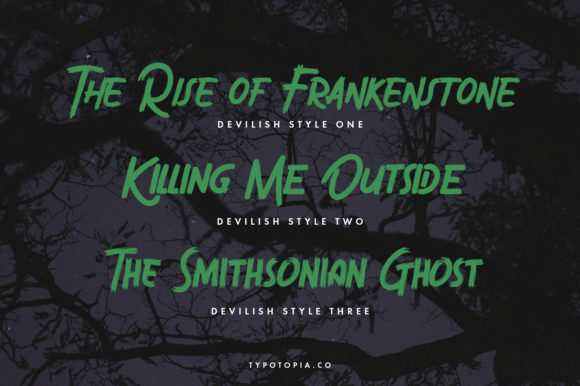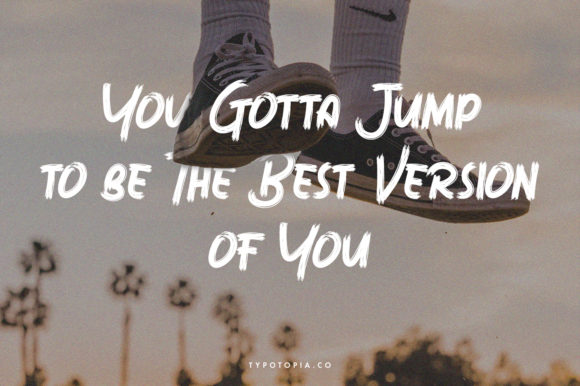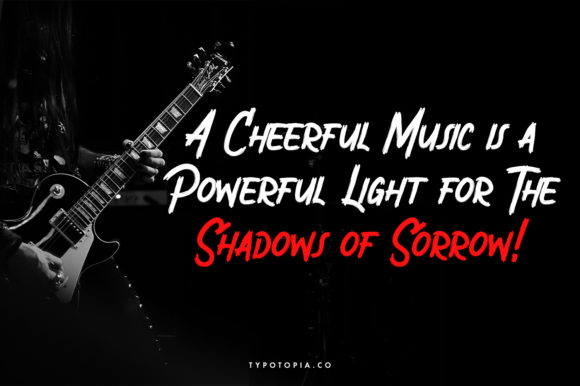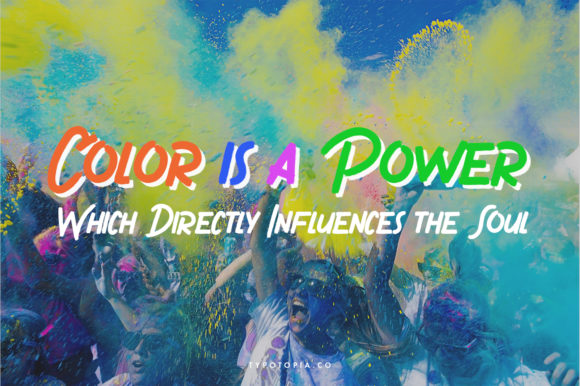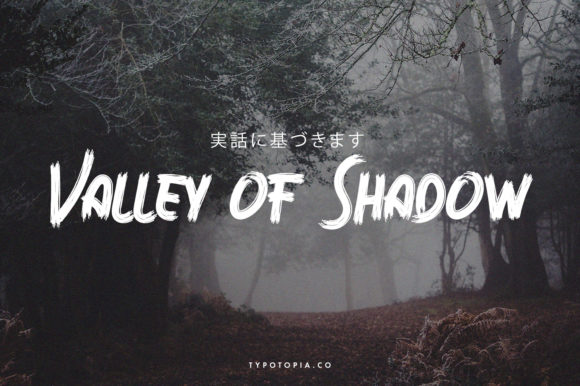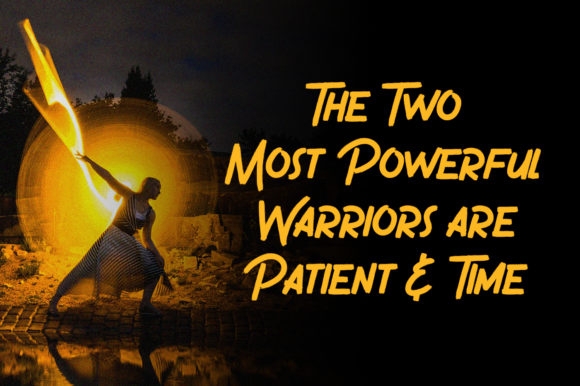
Introduction to Devilish Trio Font
Have you ever stared at a blank canvas, itching to unleash your creativity but struggling to find the perfect font to set the tone? We’ve all been there – and that’s exactly where the Devilish Trio Font comes in. This bold, blood-curdling display font is designed to add a dash of devilish charm to your creative project, making it stand out from the crowd.
Whether you’re working on a high-quality design resource or just a quick free download, the Devilish Trio Font is sure to bring a touch of sophistication and playfulness to your work. With its transparent background and versatile design, it’s the perfect addition to any creative project – from brochures to posters, and even social media graphics.
As a valuable resource for designers, the Devilish Trio Font offers endless possibilities for experimentation and innovation. So why settle for a bland, run-of-the-mill font when you can unleash your inner devil with this devilish trio of letters?
Key Features of Devilish Trio Font
- High-quality design resource ideal for creative projects, such as graphic design, digital art, and typography.
- Available in 3 unique styles, making it a versatile design resource for various creative projects.
- Features a transparent background, allowing for seamless integration with any design or image.
- Perfect for designers looking for a unique and eye-catching font to elevate their creative project.
Honest Review: Devilish Trio Font
I recently stumbled upon the Devilish Trio Font, and I’m excited to share my thoughts with you. As a designer, I’m always on the lookout for high-quality design resources that can elevate my creative projects.
The Devilish Trio Font is a great find for anyone looking for a unique, eye-catching font. ✨ It features a bold, cursive design that’s perfect for adding a touch of whimsy to your designs. One of the standout features of this font is its transparent background, which makes it easy to use on both light and dark backgrounds.
Here are some of the things that I like about the Devilish Trio Font:
- Unique, creative design
- High-quality font files for smooth rendering
While the Devilish Trio Font is a great addition to any designer’s toolkit, there are a few limitations to be aware of:
- No italic or bold styles (although this may be a deliberate design choice)
- May not be suitable for large blocks of text due to its cursive design
Overall, I’m impressed with the Devilish Trio Font and would recommend it to designers looking for a unique, high-quality font for their creative projects. With its transparent background and free download, it’s a great resource to have in your design arsenal.
Tips for Getting the Most Out of Devilish Trio Font
Experiment with different font sizes, colors, and combinations to create unique designs. Use the font’s transparent background to create depth and visual interest in your designs. With its high quality and free download availability, Devilish Trio Font is a versatile design resource that’s perfect for any creative project.
Devilish Trio Font is perfect for various design projects, including social media graphics, posters, presentations, and documents. Use it to create eye-catching headlines, titles, and text elements that stand out from the crowd. With its high quality and transparent background, this font is a great addition to any design resource collection.